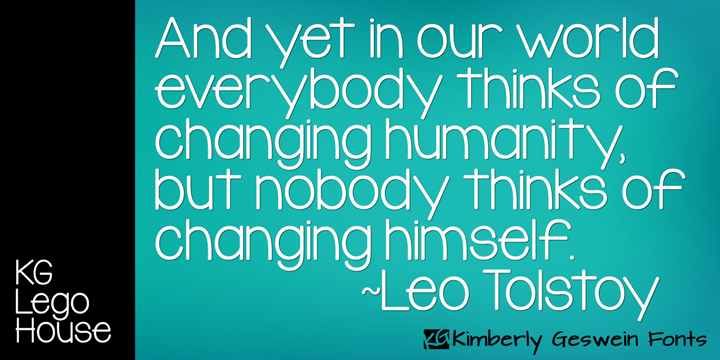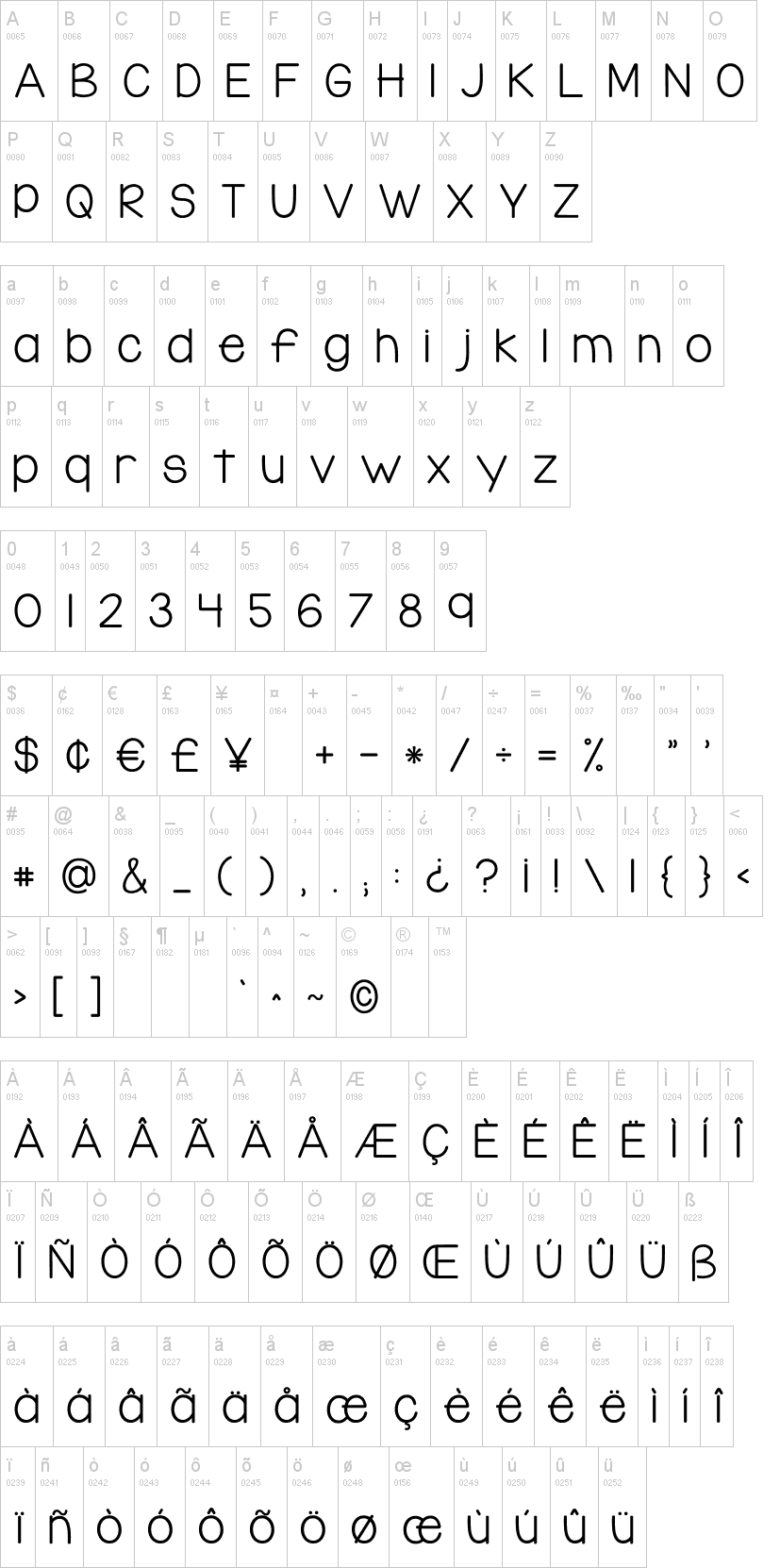
Note of the authorNeat handwriting perfect for teachers. This font includes extra math symbols for teachers. Just enough personality while still being perfectly neat.